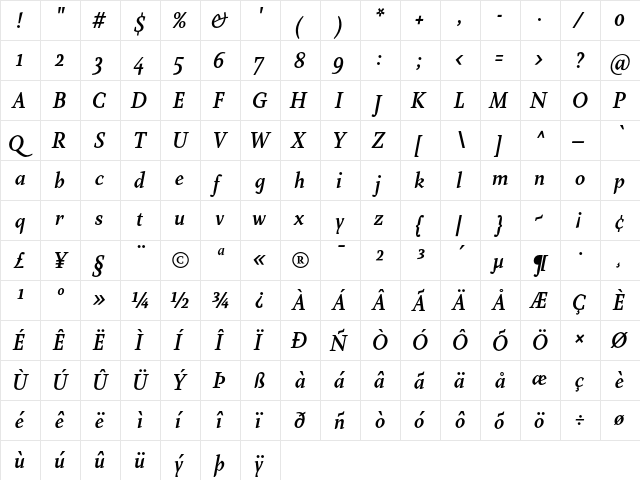
Farrerons Serif DemiBold Italic
| Foundry | Josep Patau Bellart |
| Designer | Josep Patau Bellart |
Design Context for Farrerons Serif DemiBold Typeface
Farrerons Serif DemiBold brings classic typographic sensibility to the table — its serifs and measured letterforms reflect centuries of print heritage. The slanted form adds forward momentum and visual energy. Its bold stroke weight gives it real presence on the page.
Pro Tip: Set Farrerons Serif DemiBold with slightly loose tracking in headlines to let each letterform's detail read clearly at display sizes.